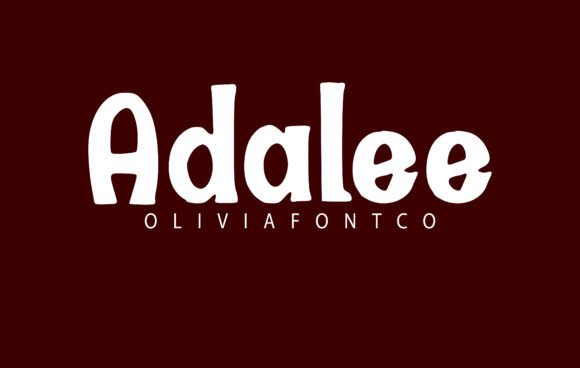
The Adalee Font: A Romantic Touch for Your Creative Projects
I’ll never forget the time I was working on a wedding invitation design project, and I just couldn’t seem to find the perfect font. My client wanted something elegant, yet playful, and I was determined to deliver. That’s when I stumbled upon the Adalee font, and let me tell you, it was love at first sight! 💕
Adalee font is an authentic handwritten font with a romantic touch, expertly designed to be a true favorite among designers, crafters, and creative hobbyists. Its legibility and versatility make it perfect for a wide range of designs, from magazine headlines and social media graphics to branding, wedding invitations, and cards.
- ✨ Romantic and elegant feel: Adalee font has a unique, handwritten charm that adds a touch of sophistication to any design.
- ✅ Legible and versatile: This font is perfect for both title and body text, making it a great addition to any design project.
- 💫 OpenType features: Adalee font comes with a range of OpenType features, including glyphs and stylistic alternates, which allow for endless creative possibilities.
While Adalee font is an amazing addition to any design project, there are a few things to keep in mind: ⚠️
- 🤔 Limited use in very formal designs: While Adalee font is elegant, it may not be the best choice for very formal designs, such as corporate logos or government documents.
- ⚠️ Some characters may require adjustment: As with any font, some characters may require adjustment to ensure proper spacing and alignment.
The Backstory Behind Adalee Font
Adalee font was designed with love and care by a talented typographer who wanted to create a font that would capture the essence of romance and elegance. The font is named after the designer’s grandmother, Adalee, who was known for her beautiful handwriting and kind heart.
Q: What is Adalee font?
A: Adalee font is an authentic handwritten font with a romantic touch, expertly designed to be a true favorite among designers, crafters, and creative hobbyists.
Q: Is Adalee font legible?
A: Yes, Adalee font is highly legible and perfect for both title and body text.
Q: Does Adalee font come with OpenType features?
A: Yes, Adalee font comes with a range of OpenType features, including glyphs and stylistic alternates, which allow for endless creative possibilities.